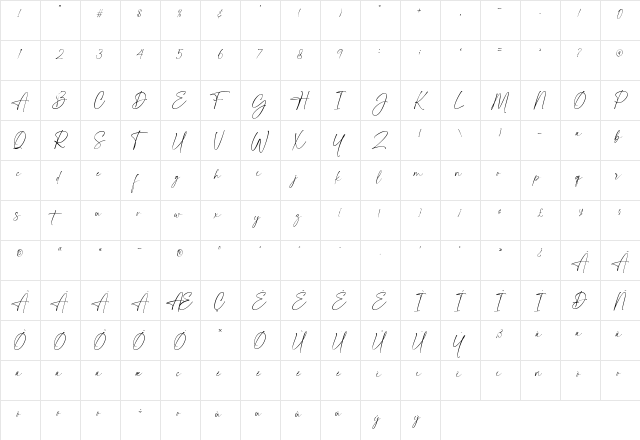
La Beauties Regular
| Designer | (MJB Letters). 2020. (Muhammad Mujibulloh) |
Design Context for La Beauties Typeface
La Beauties is a composed and adaptable typeface that performs quietly and consistently across a wide range of design contexts.